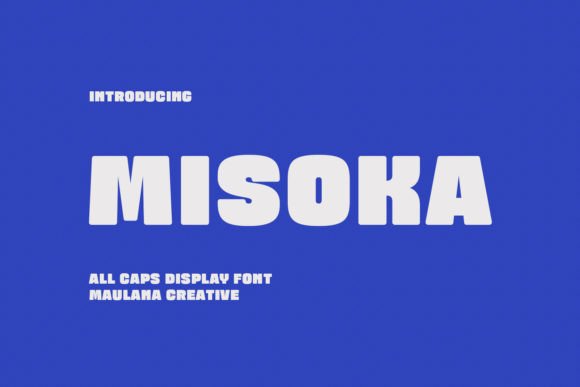
Journey into the world of Misoka, where boldness and style dance together to create an unforgettable visual spectacle. Immerse yourself in a universe of carefully crafted, all-caps letters that exude confidence and sophistication. Misoka's striking presence demands attention, making it the ultimate choice for those seeking to leave a lasting impression.
Explore the endless possibilities as you unleash your creativity with Misoka. Whether you're crafting captivating logos, designing sleek posters, or adding a touch of flair to presentations, Misoka's versatility knows no bounds. Let your imagination soar as you transform ordinary designs into extraordinary masterpieces.
Step into the spotlight with Misoka, the font that commands attention and ignites conversations. Dare to be different and make a statement that resonates with your audience. From greeting cards that convey heartfelt messages to digital designs that captivate and inspire, Misoka is your perfect partner in creating a visual symphony that leaves them spellbound.